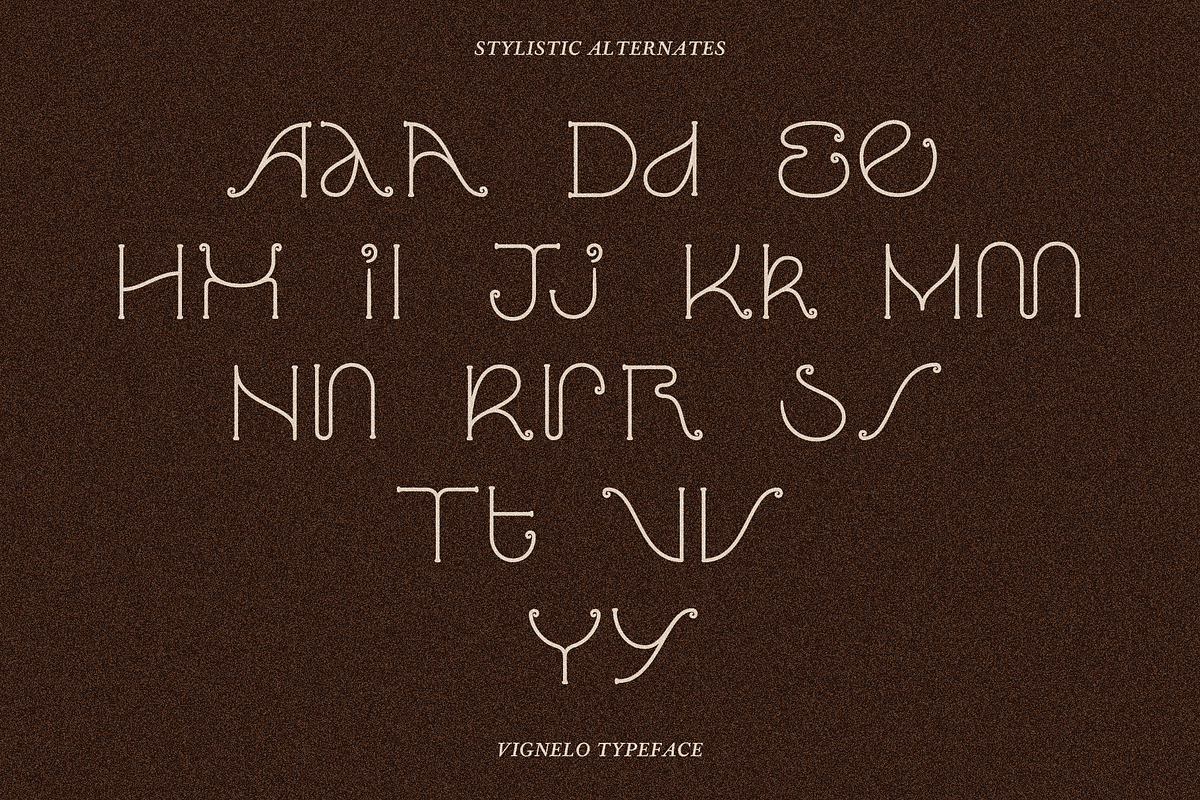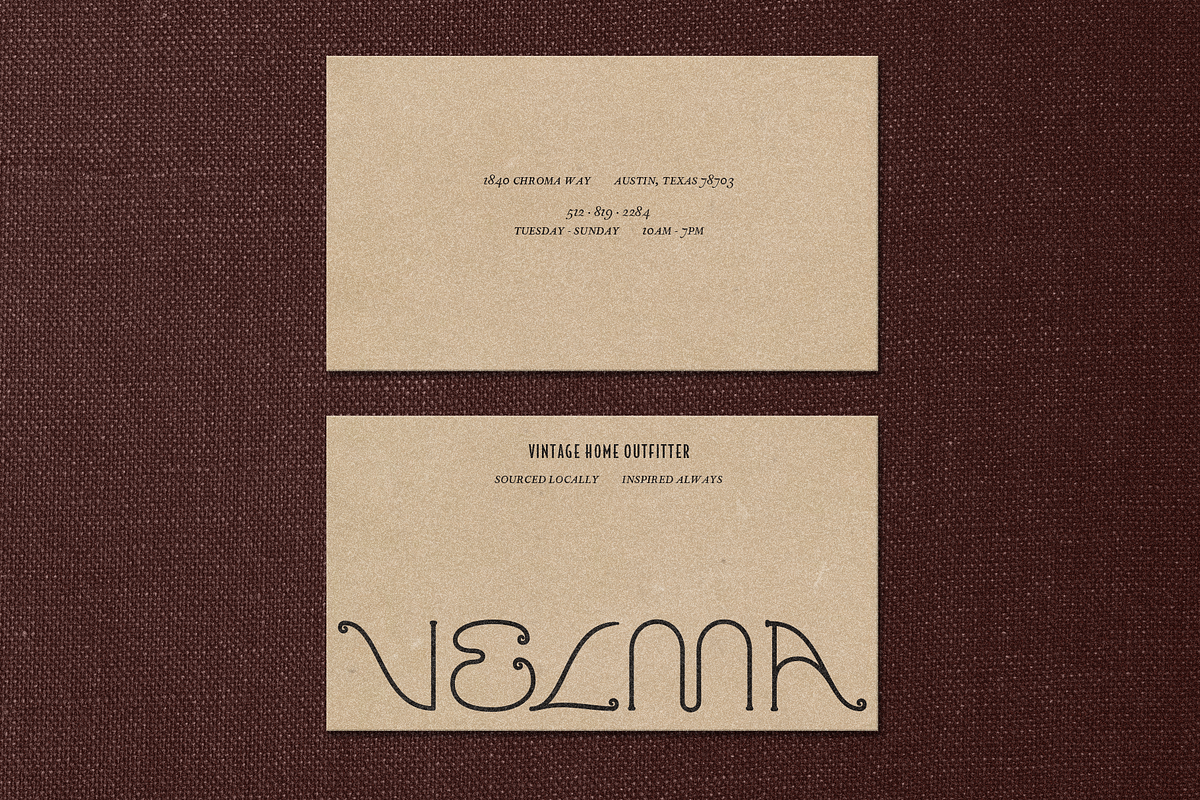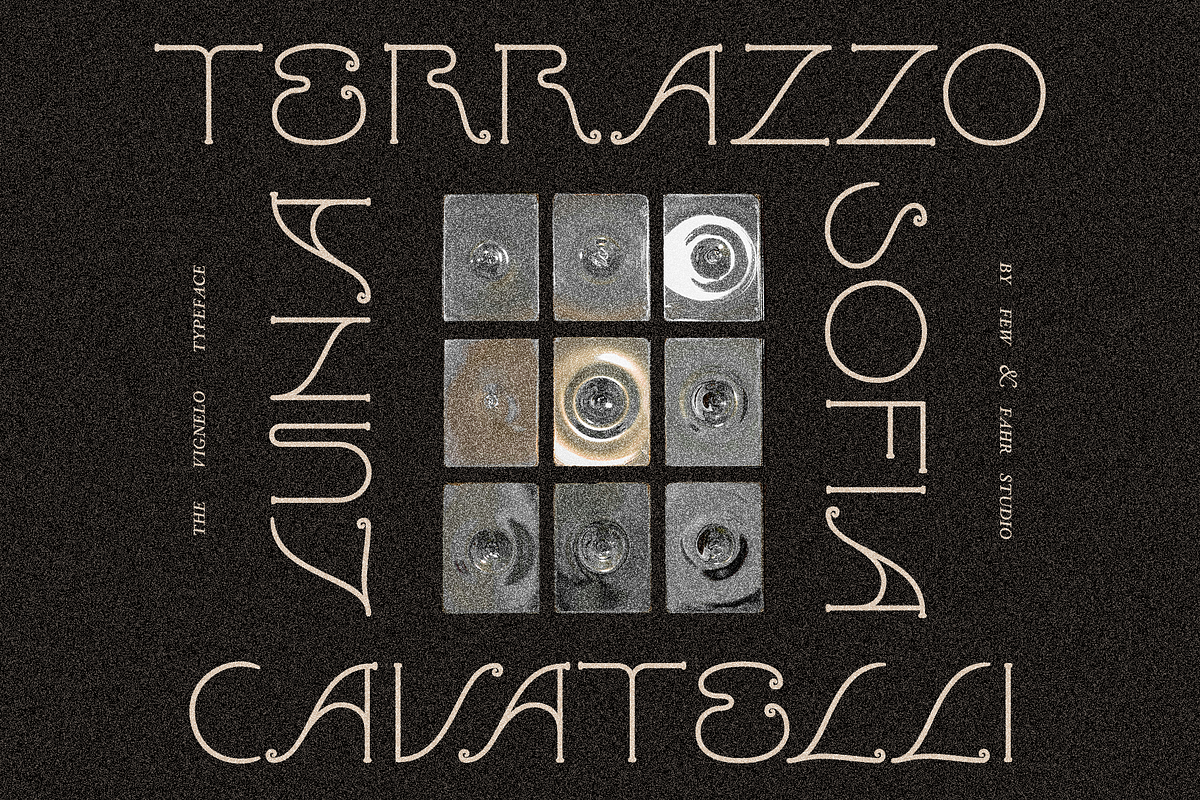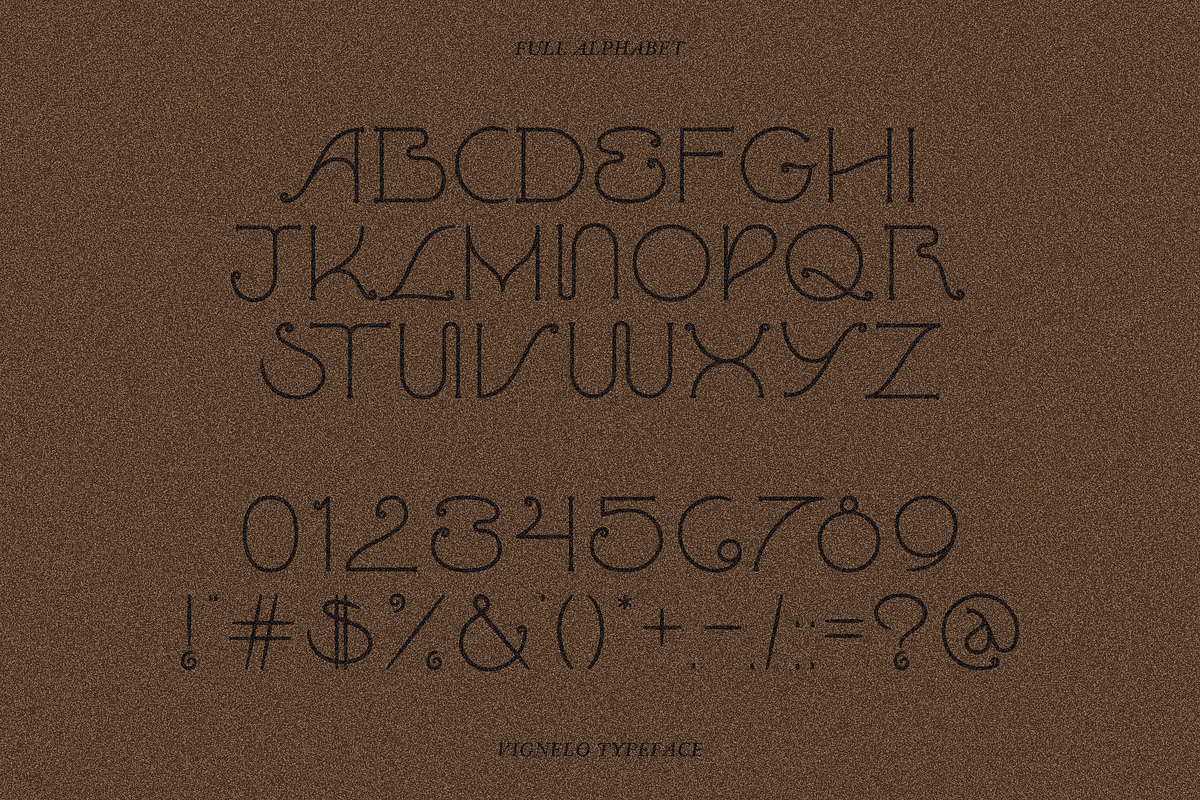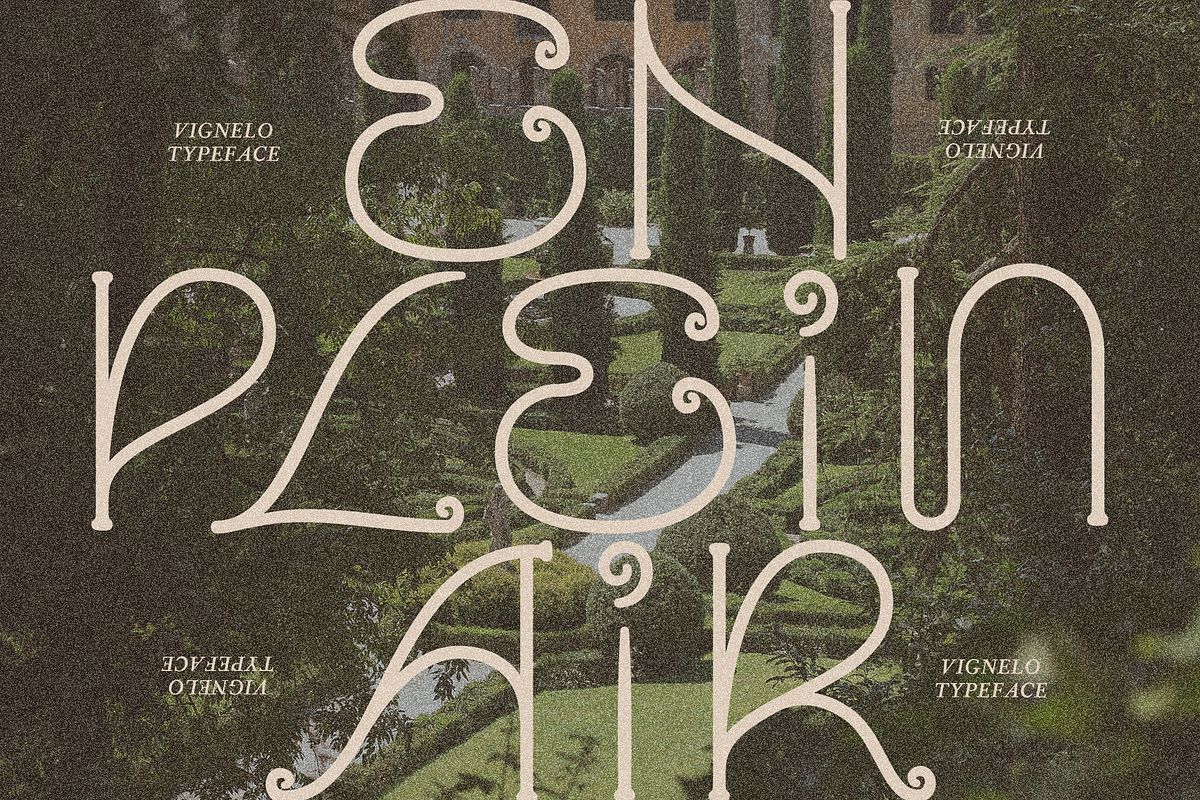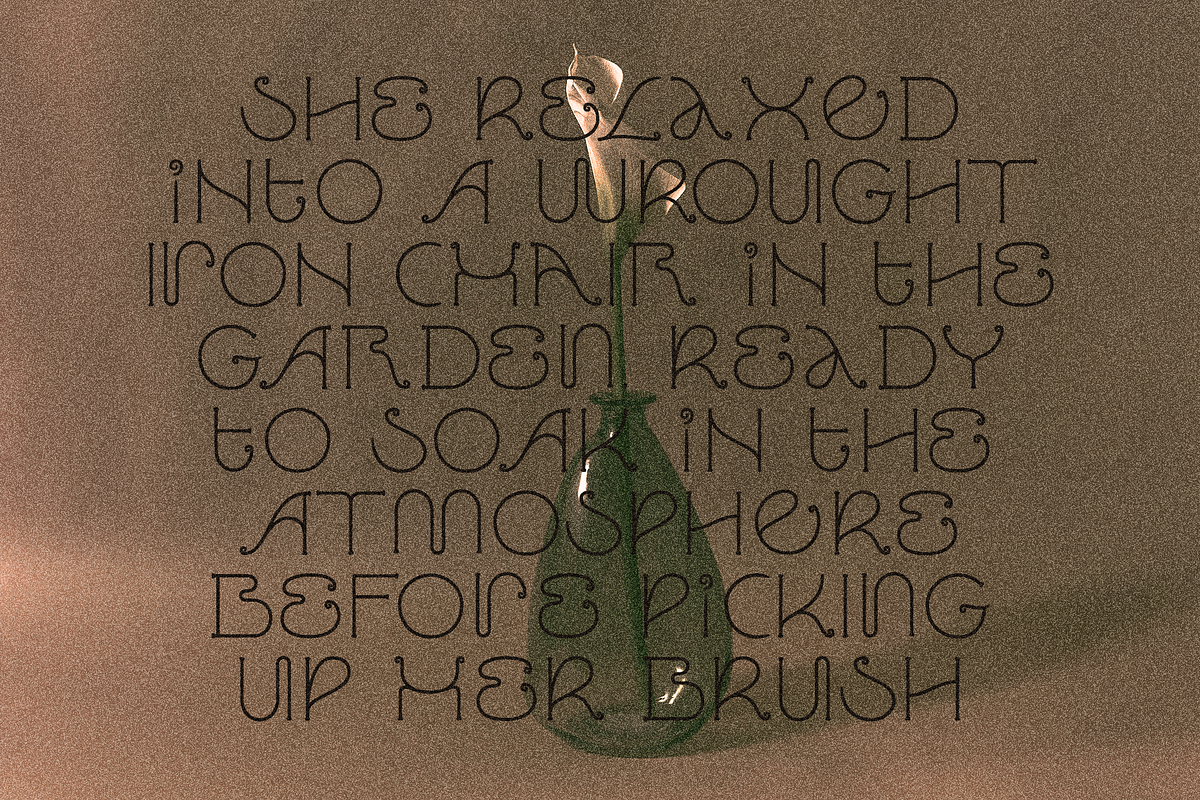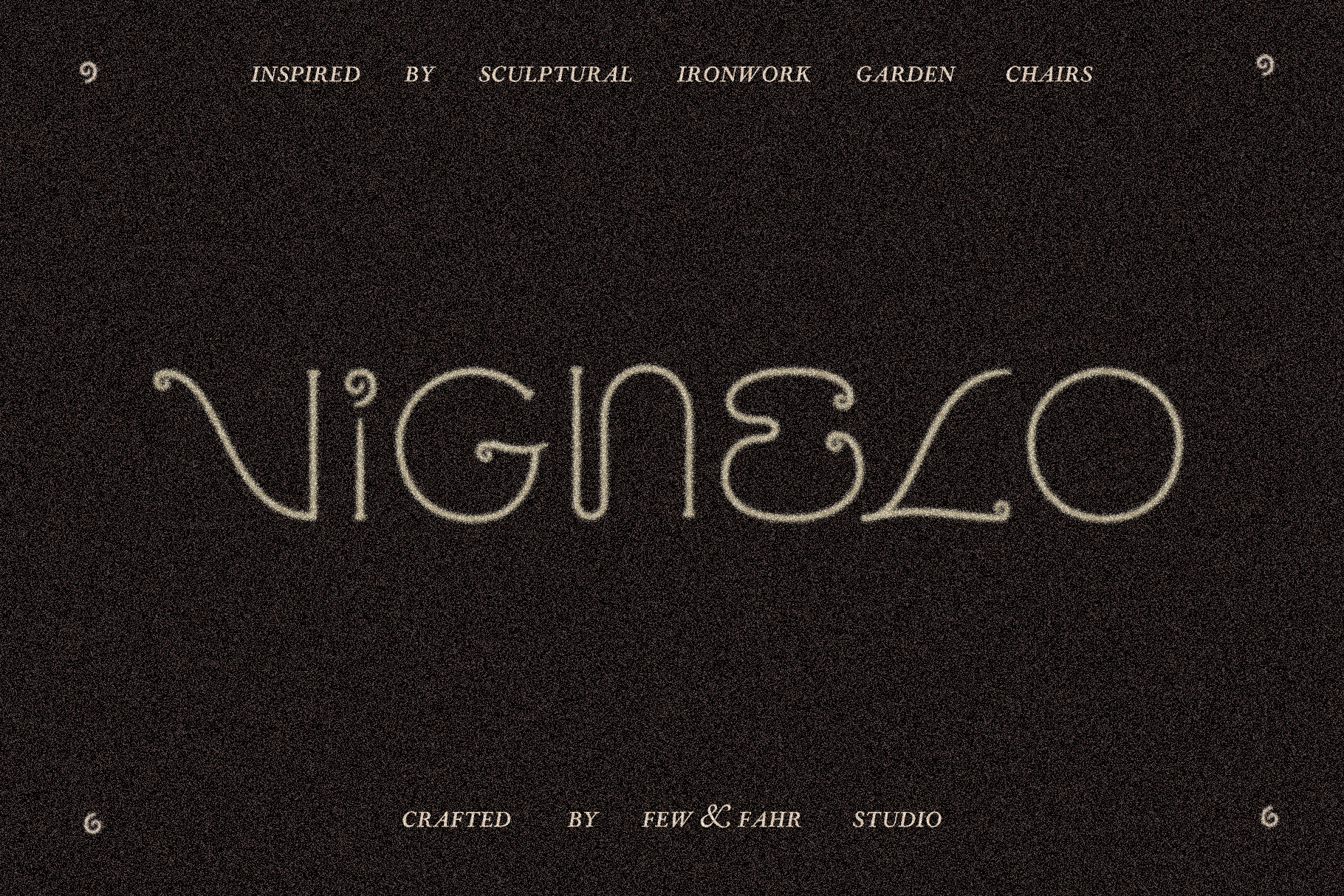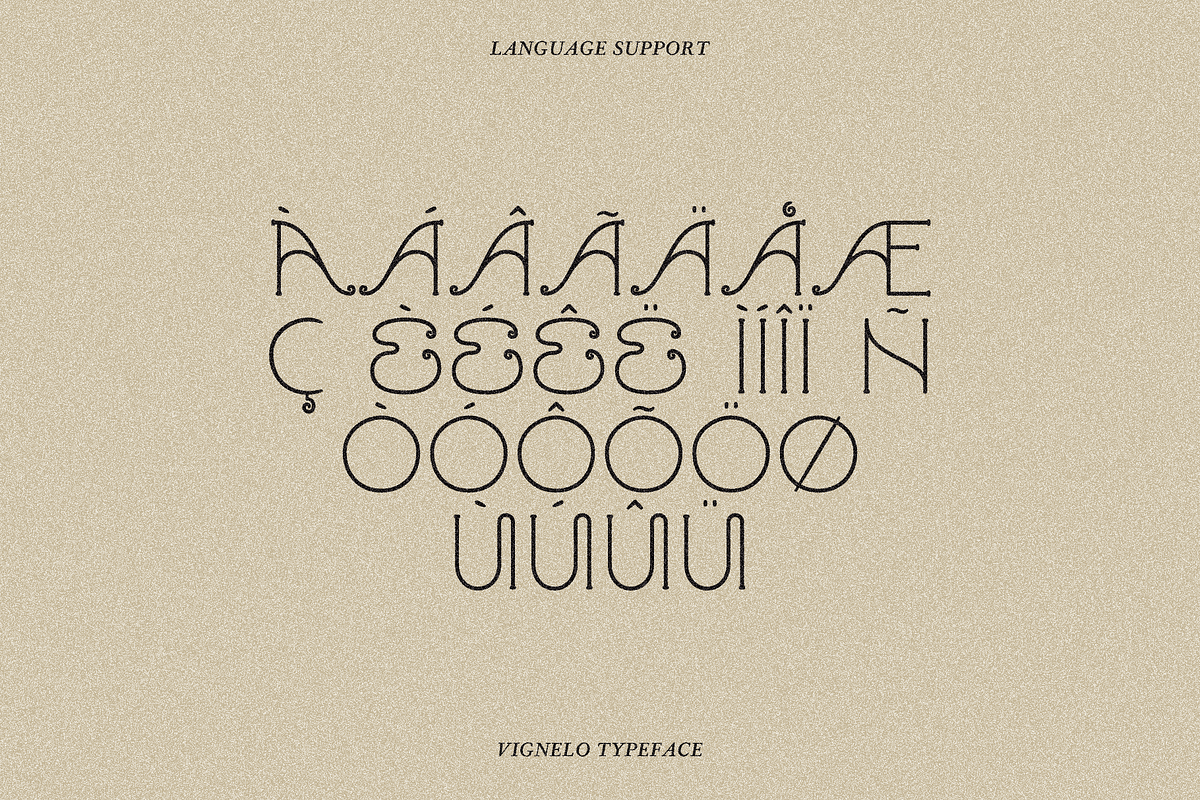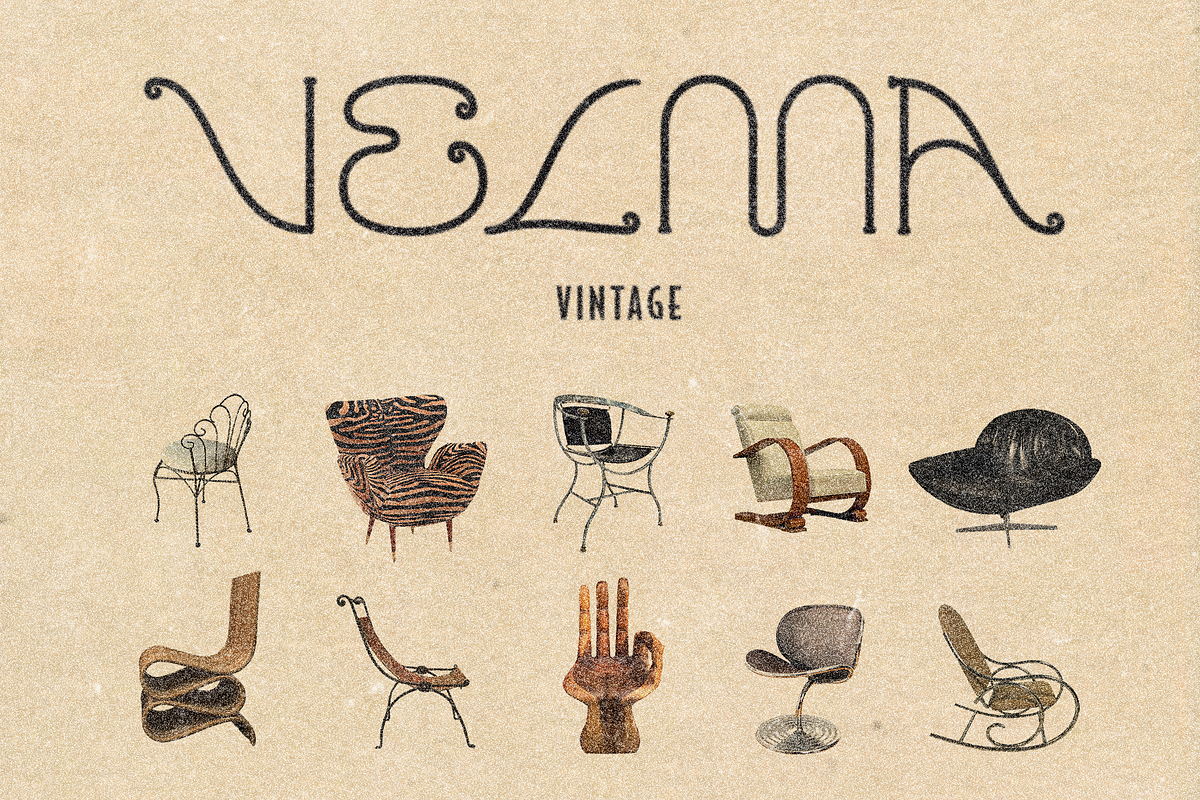
VIGNELO Typeface
Vignelo is a typeface inspired by the charming lines of European ironwork furniture. It features subtle flairs, such as spiraled and footed terminals, unique curves, and intentional flow - just like that of an iron patio chair. Vignelo invokes the energy of a patio in an Italian garden - but not just any patio, an artist's patio. One where furniture pieces and textiles are intentionally curated - where pottery is thrown or paintings are done en plein air.
- Uppercase letterforms
Use Vignelo for branding & logos, invitations, cards, apparel, art prints etc.